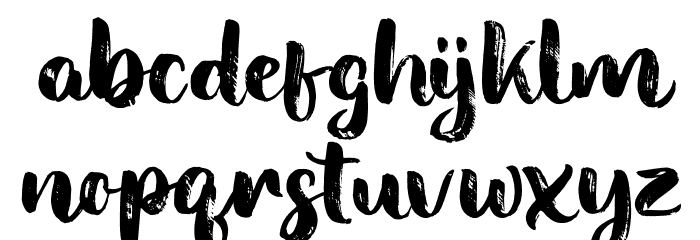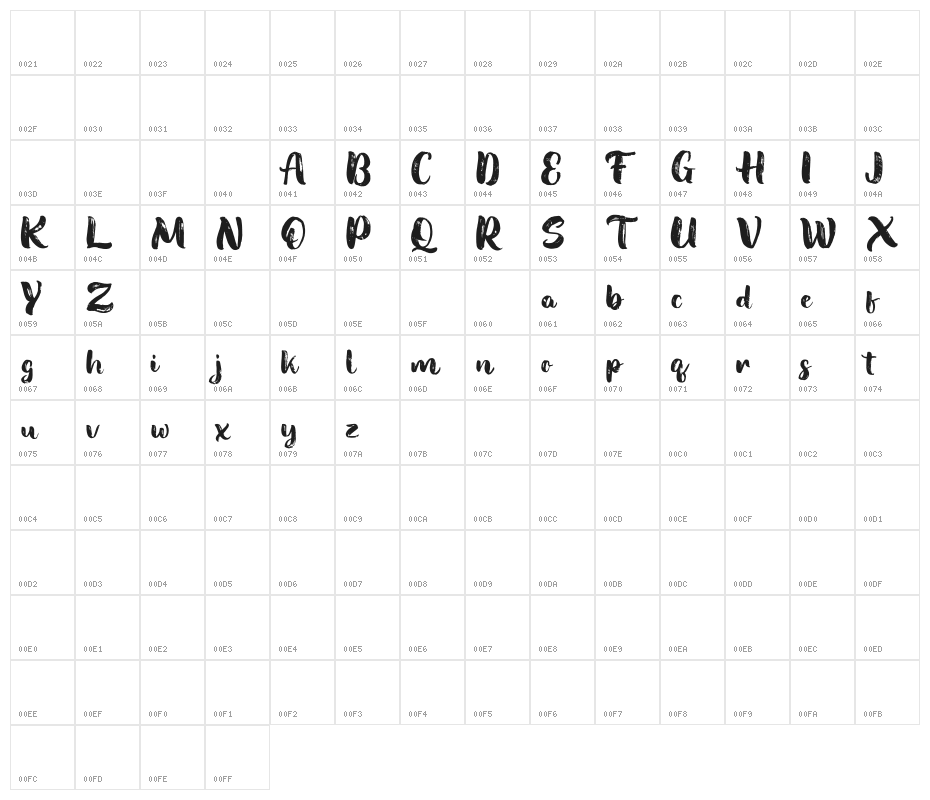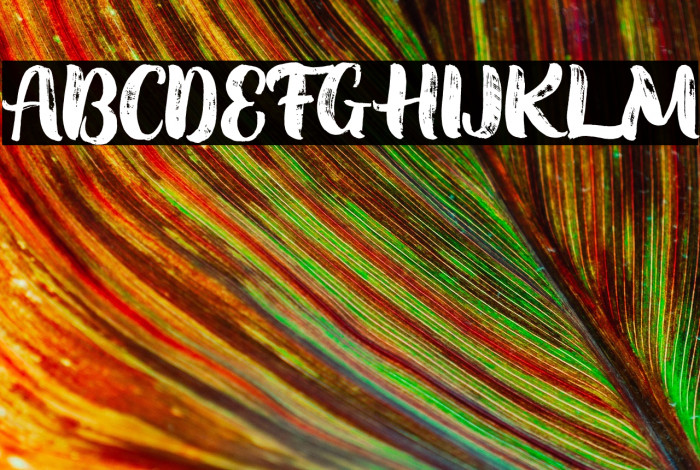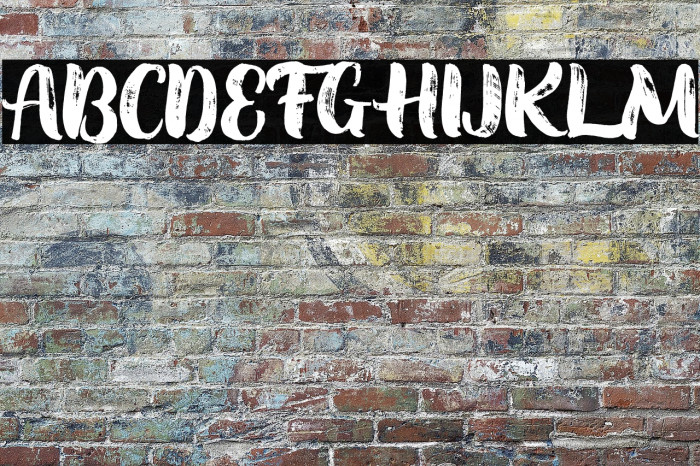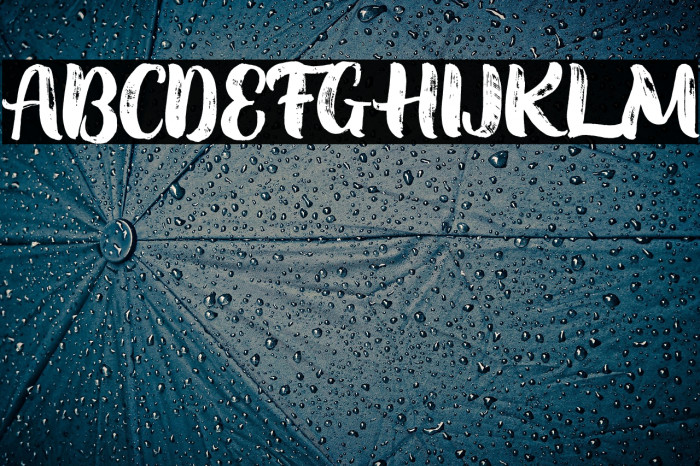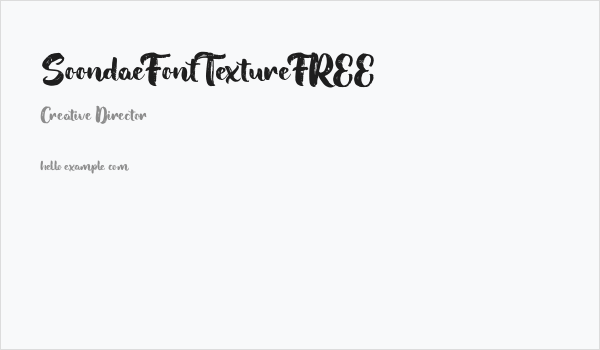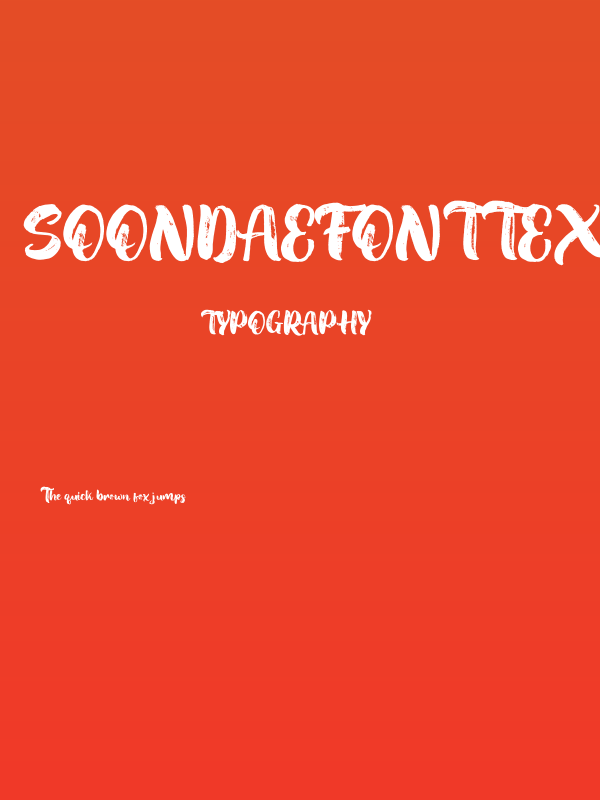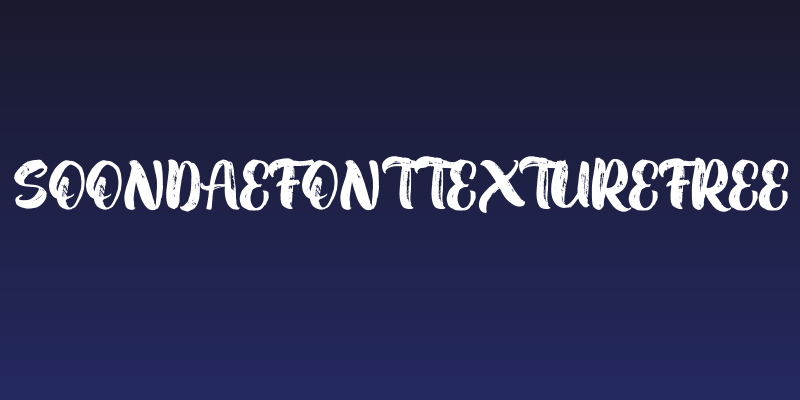
SoondaeFontTextureFREE Font
This font features a bold, textured brush style that exudes a sense of artistic flair and creativity. The letters are crafted with a hand-painted appearance, giving them a dynamic and energetic feel. Each character is unique, with varying stroke thicknesses and a slightly distressed look, adding to its charm. The uppercase and lowercase letters maintain a consistent style, while the texture adds depth and character. This font is ideal for projects that require a personal touch or a bold statement, such as posters, branding, or social media graphics.
A bold, textured brush font with an artistic and dynamic style.
- Font: SoondaeFontTextureFREE
- Proposed Projects: Ideal for posters, branding, social media graphics, and any project needing a bold, artistic touch.